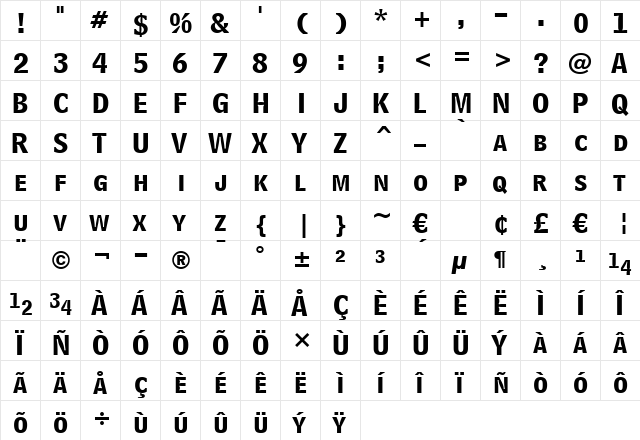
BellCent BdList BT Bold Listing
BellCent BdList BT takes a measured approach to typography — its balanced proportions and neutral character make it a reliable workhorse for both digital and print work. Its bold stroke weight gives it real presence on the page.